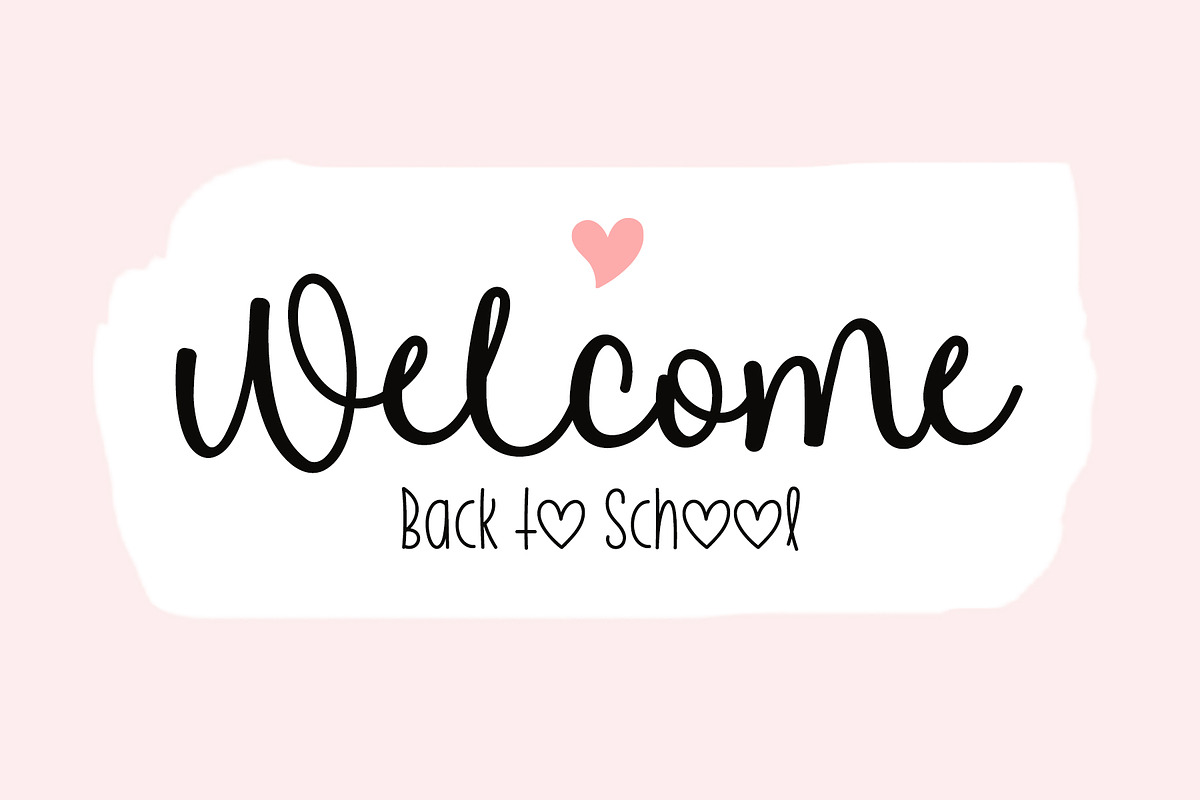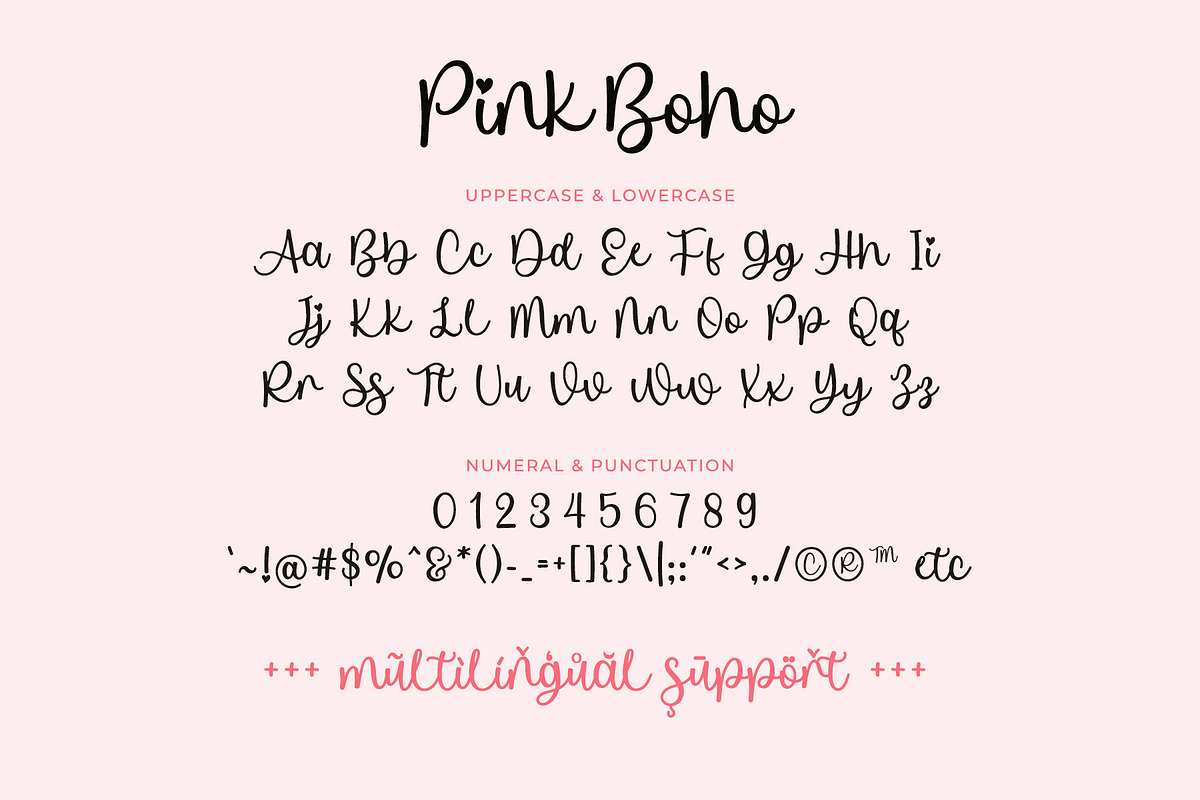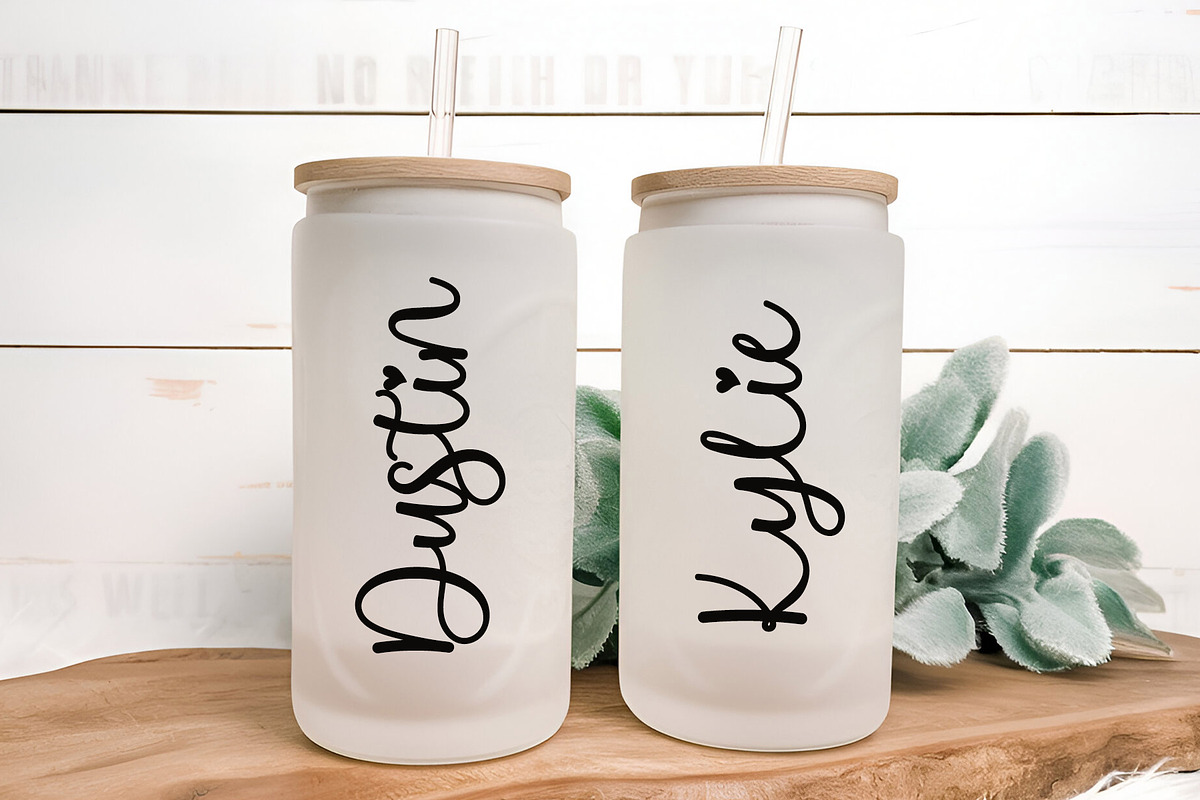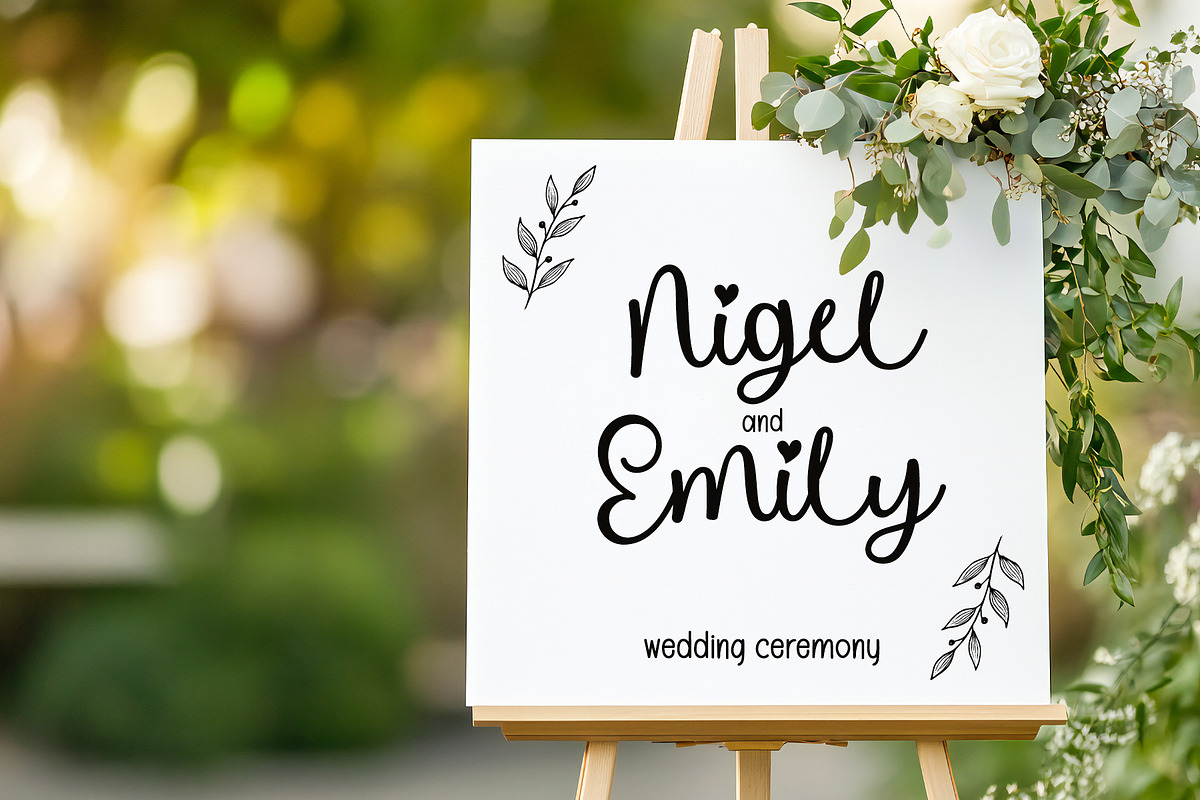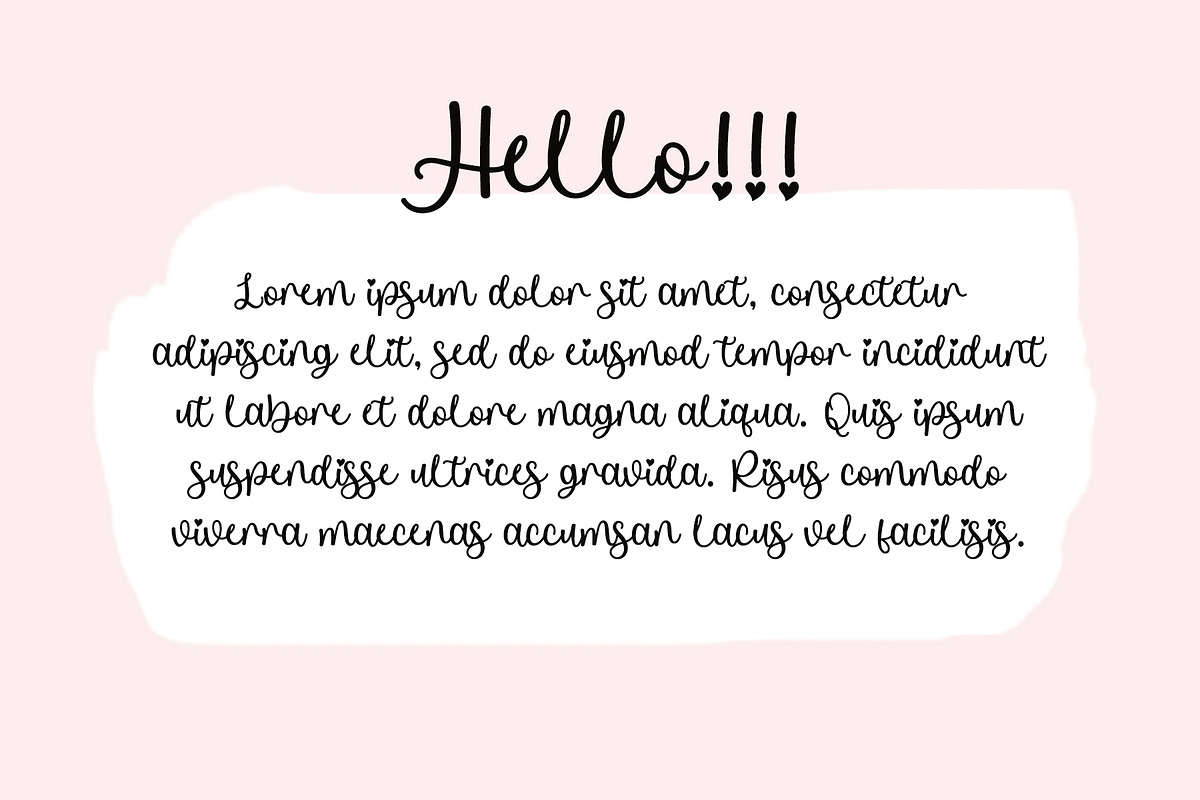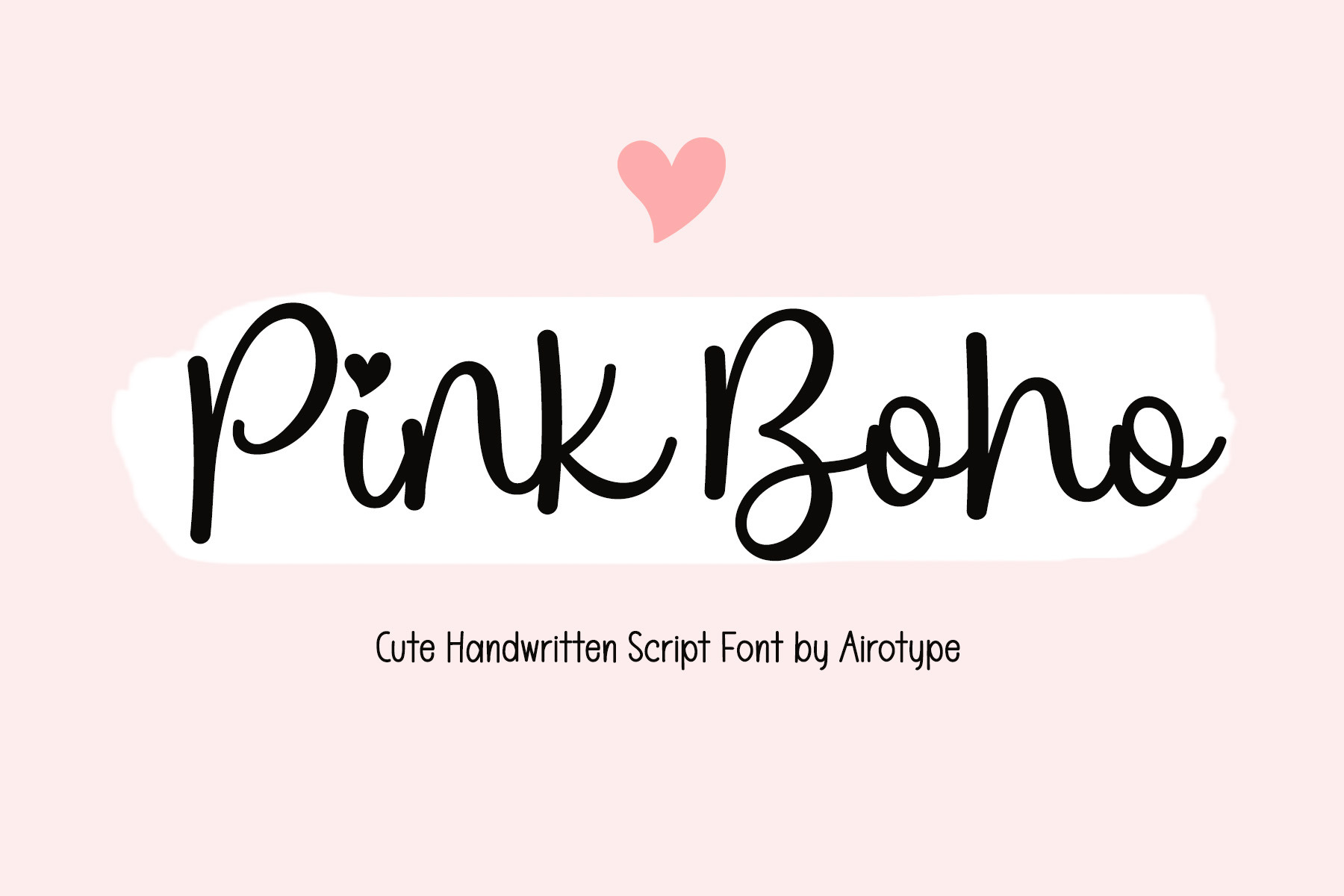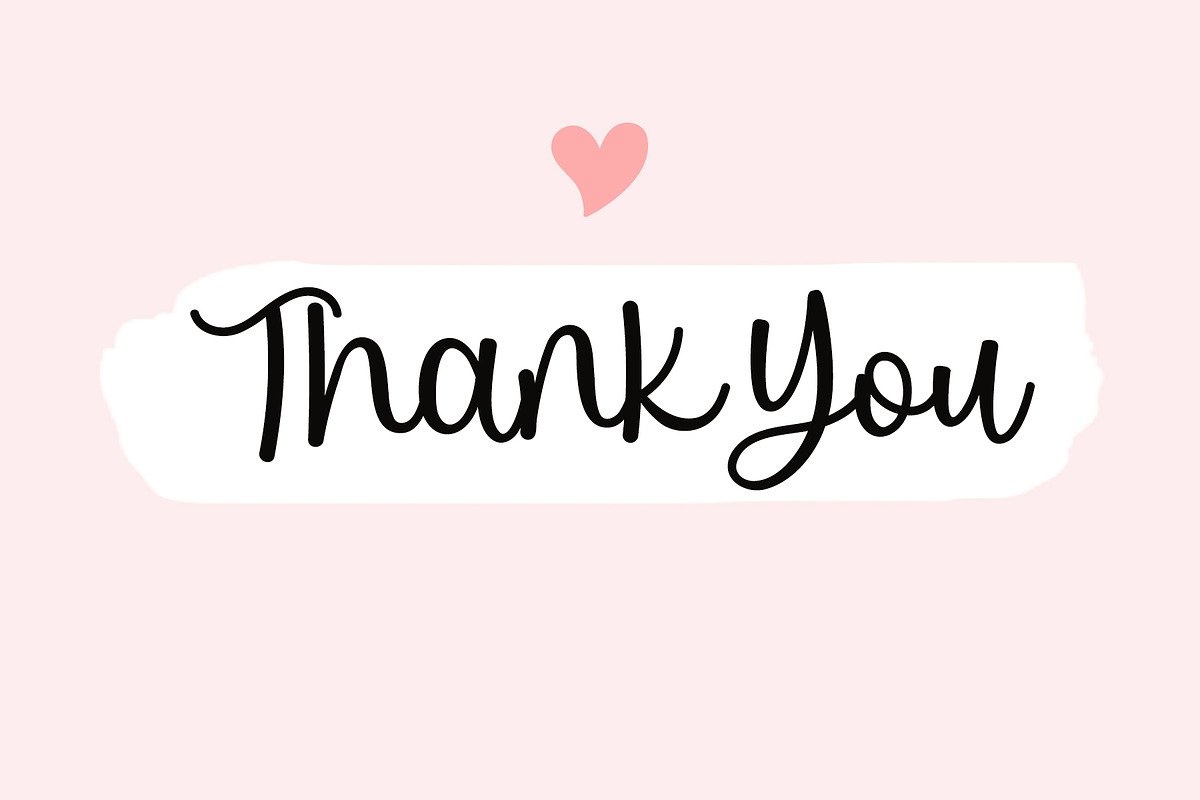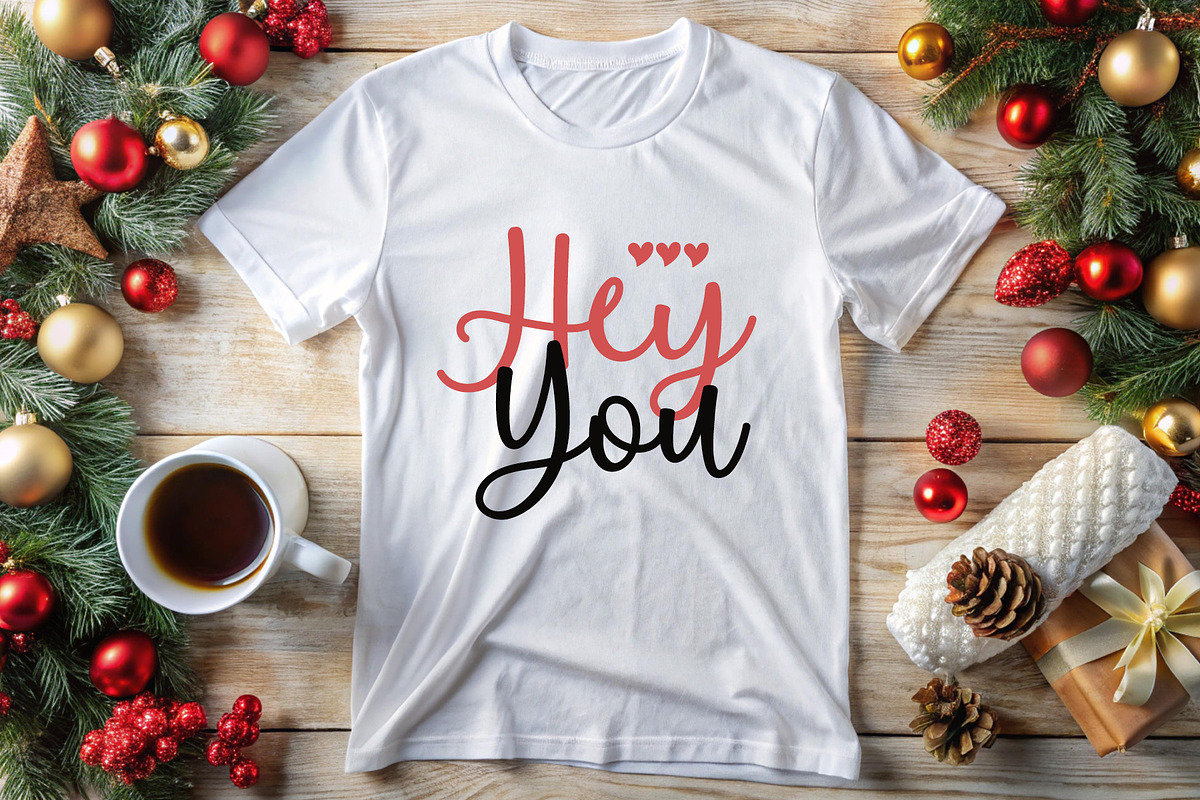
Pink Boho - Lovely Script Font
Pink Boho is simple and cute handwritten script font with lovely vibes. This is cursive, bouncy, and fun.
This font is so pretty for design that needs simple handwritten touch, such as valentines day design, wedding design, invitation, birthday, t-shirt design, crafting, sticker, sublimation, and many more.
- Most Multilingual Accent